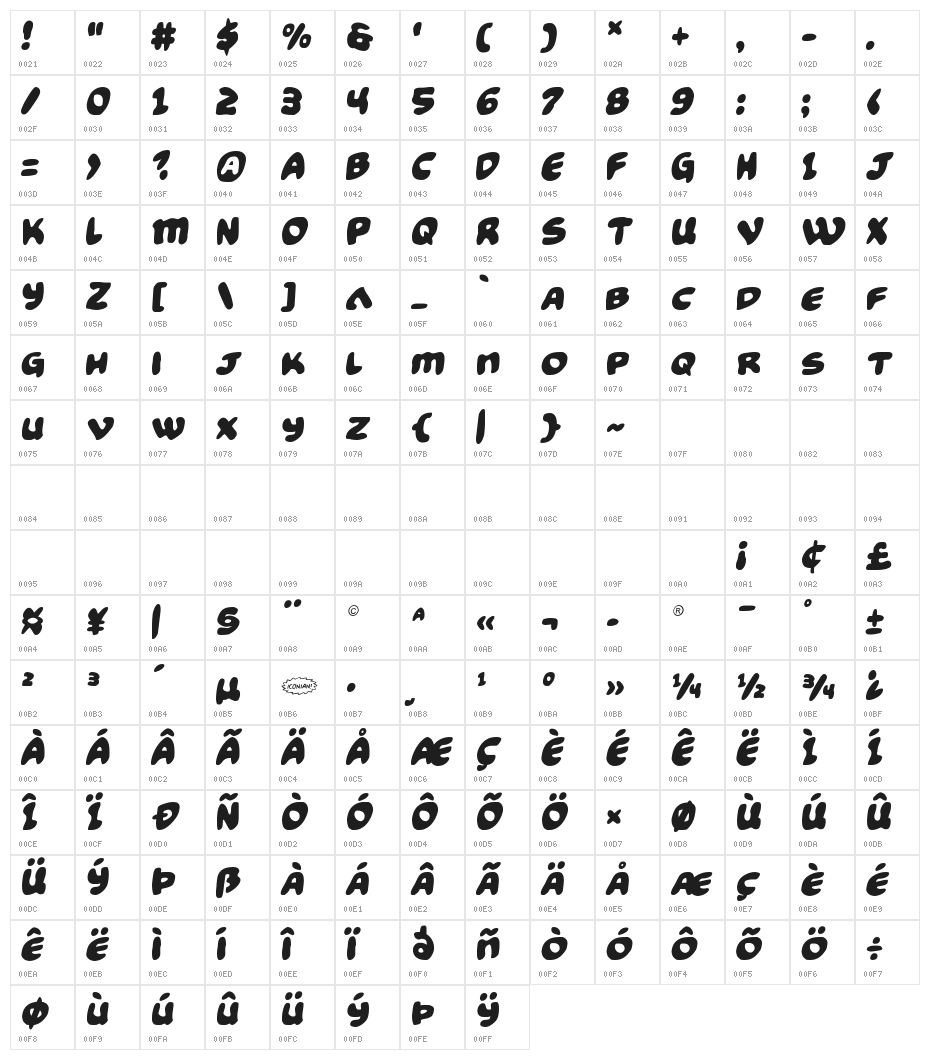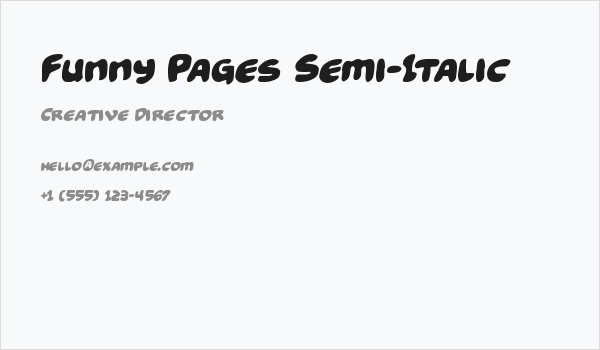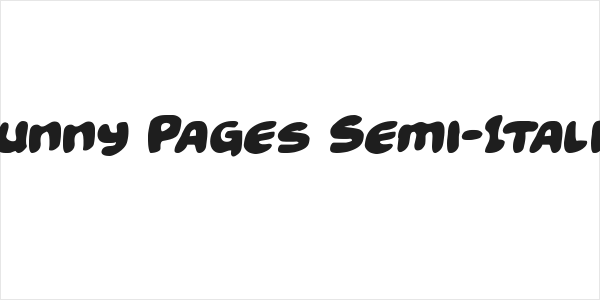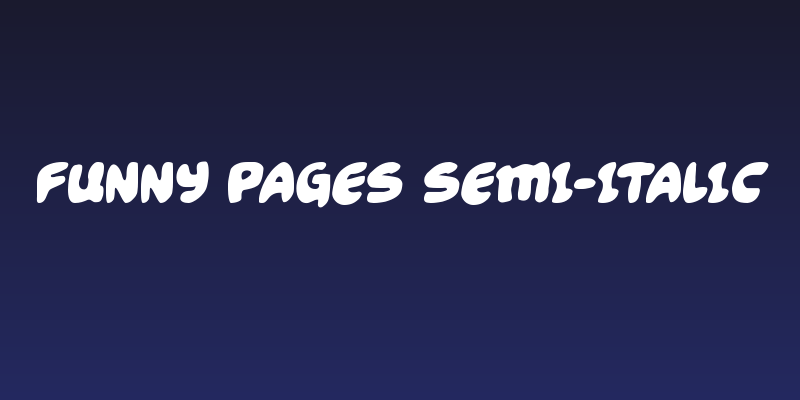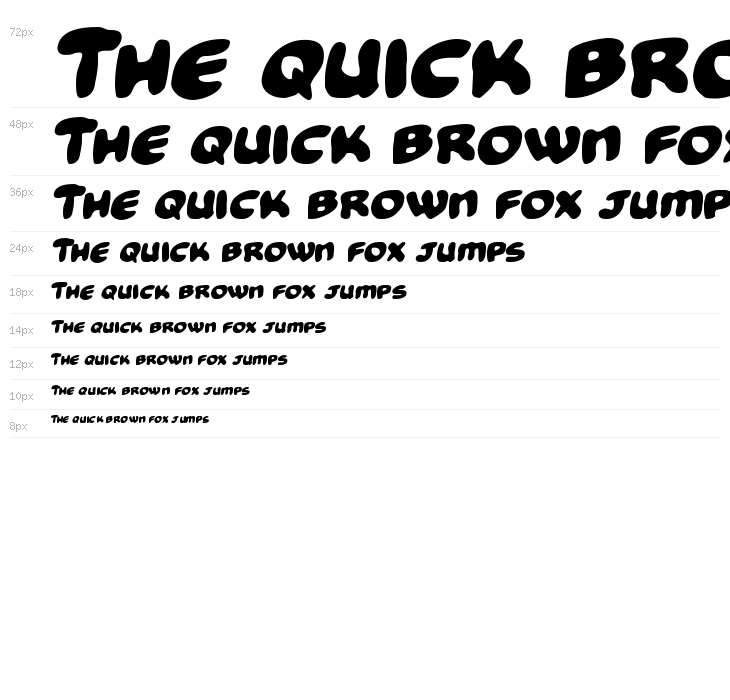
Funny Pages Semi-Italic Font
Funny Pages Semi-Italic Description
This playful and bold typeface features a semi-italic style with rounded, bubbly characters that exude a sense of fun and whimsy. The letters are thick and substantial, giving them a strong presence on the page. The curves are smooth and exaggerated, adding to the font's cartoonish and informal appeal. The numbers and special characters maintain the same playful aesthetic, ensuring consistency across all text elements. This font is perfect for projects that require a lighthearted and approachable feel, such as children's books, comic strips, or playful branding.
| Overall Style | Playful, Cartoonish |
| Proposed Projects | Ideal for children's books, comic strips, playful branding, and informal invitations. |